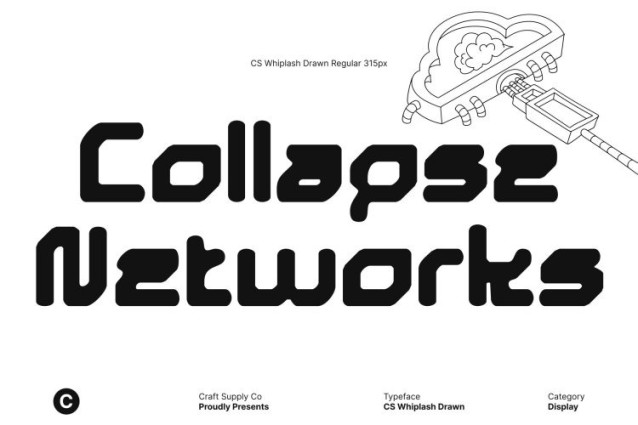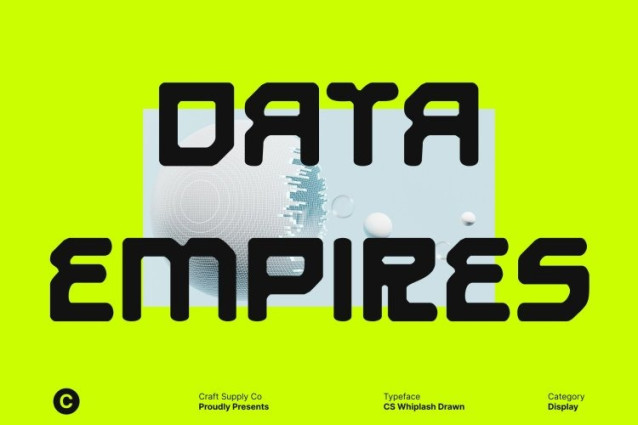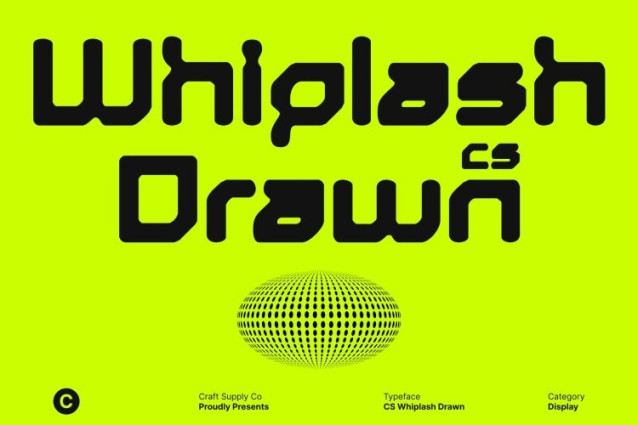
CS Whiplash Drawn Font
CS Whiplash Drawn Font This is a modern display font built on techno and futuristic principles, featuring sharp, clean letterforms and strong geometric construction. Its structured shapes and precise angles project a highly technical and efficient impression, making the font feel advanced, organized, and confidently modern. The bold design ensures clear visibility and strong impact in display use.
High-Tech Geometry with Artistic Texture
While rooted in digital precision, the drawn effect introduces a subtle handcrafted texture that adds depth and character. This artistic layer softens the rigid geometry without losing its high-tech identity, creating a unique balance between machine-like accuracy and human expression. The result is a font that feels futuristic yet visually engaging and expressive.
Dynamic and Forward-Thinking Character
This font a carries a dynamic, progressive mood that reflects innovation and speed. Its sharp forms and digital-inspired elements suggest motion, efficiency, and technological evolution. This makes the font ideal for designs that aim to communicate advancement, intelligence, and a forward-looking vision.
Ideal for Tech, Gaming, and Futuristic Branding
This font works exceptionally well for tech company branding, game titles, UI concepts, digital posters, and futuristic visual systems. Its blend of geometric precision and hand-drawn texture delivers a modern, cutting-edge identity that feels bold, innovative, and ready for the future.